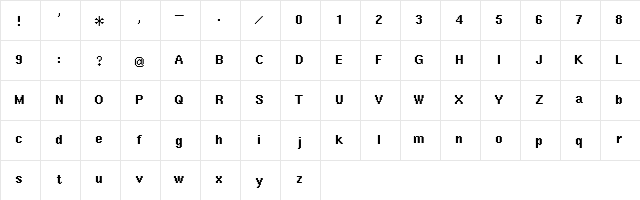
Final Fantasy 1 PSXb Regular
Design Context for Final Fantasy 1 PSXb Typeface
Final Fantasy 1 PSXb offers clean, dependable letterforms without strong stylistic allegiance, making it a practical choice for designers who need flexibility.
Pro Tip: Use Final Fantasy 1 PSXb in both headline and body roles to test its range before committing to a single application.